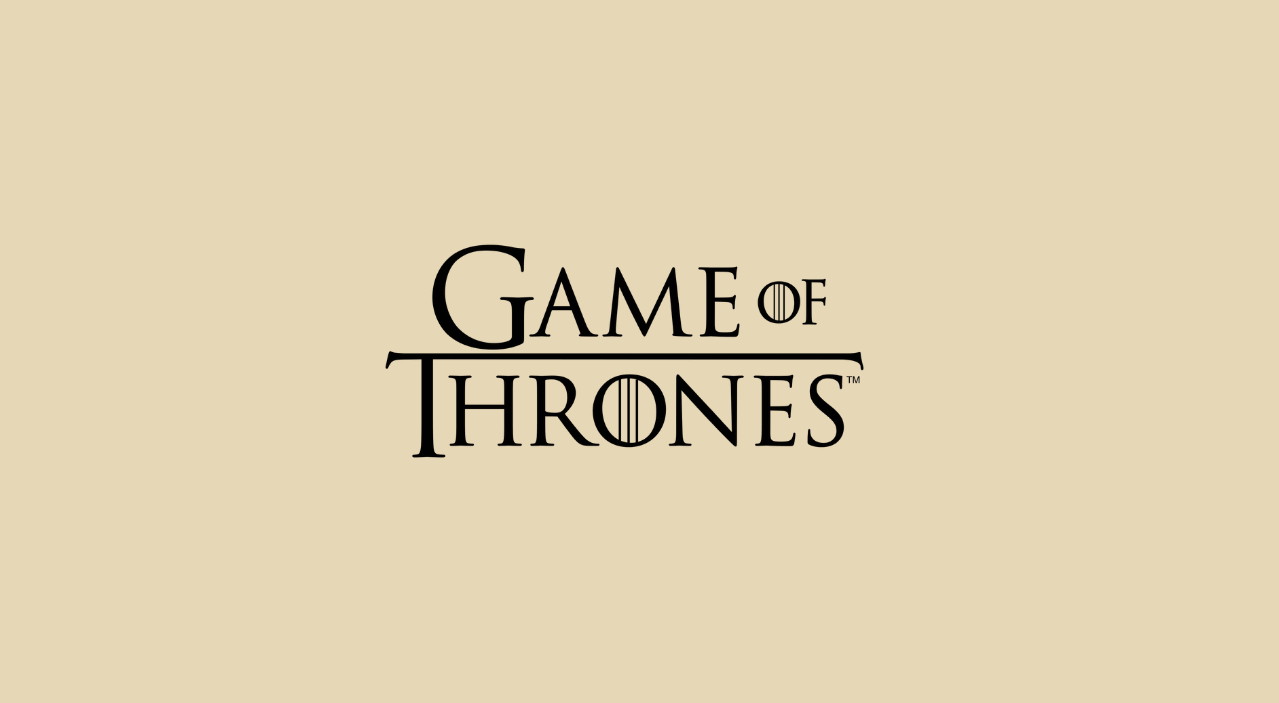
Game Of Thrones Serif Font
The Game of Thrones Font is inspired by the Netflix show Game of  Thrones this font was used in their intro. So designers were so impressed with the font so they decided to make a font similar to it.
It’s for a design that can be used because of the basic font of an international agency or in easy community e-newsletter. Author Sebastian Lester has created several custom fonts for precise. Clients of mono-type imaging even as working as one in every of their lead designers.
Operating on his personal time outside of the layout studio, Lester advanced the Soho and Soho Gothic typefaces. His aim became to mix both aesthetic and purposeful quality in a single typeface family. Designed between 2004 and 2007, the Gothic layout was no longer only a revision of the earlier font own family. All characters were drawn again, with Soho inside the leading edge to make sure compatibility between the two font households.